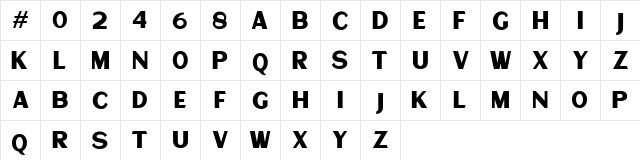
Sunmore Personal Use Regular
| Foundry | Viaction Type |
| Designer | Lukman Hidayat "Viaction Type" |
Design Context for Sunmore Personal Use Typeface
Sunmore Personal Use takes a measured approach to typography — its balanced proportions and neutral character make it a reliable workhorse for both digital and print work.